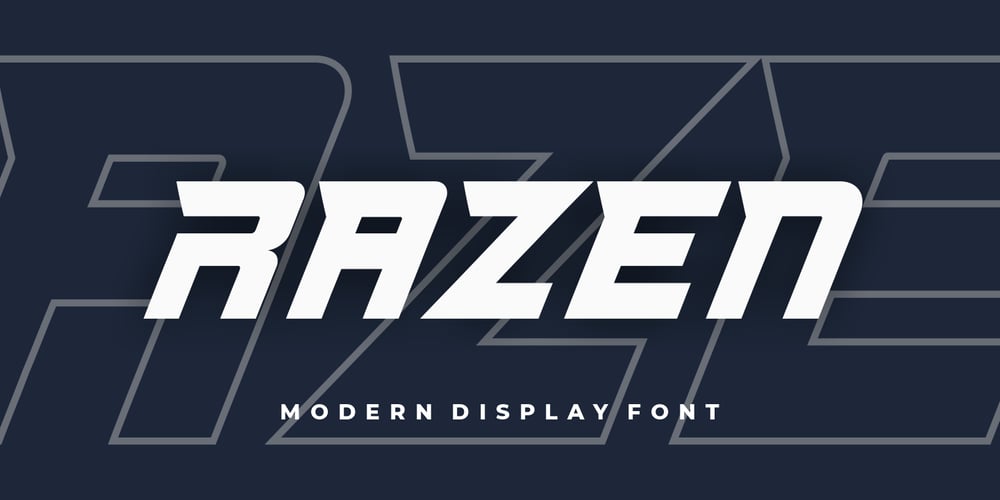
Razen
Razen font
Razen Font Family was designed by Burhan Afif and published by HansCo. Razen contains 2 styles and family package options. RAZEN is a sharp italic and bold font with unique style that will make your design looks modern, geometric and futuristic. You can use this font for any purpose, especially to make logotype like a technology or sport logo brand. This typeface is comes in ALL CAPS, punctuation, symbols, numerals, etc also support multilingual in all caps. Highly recommended to use it in Adobe Illustrator, Adobe InDesign, Adobe Photoshop Corel Draw X version, Afinity and more. Enjoy!